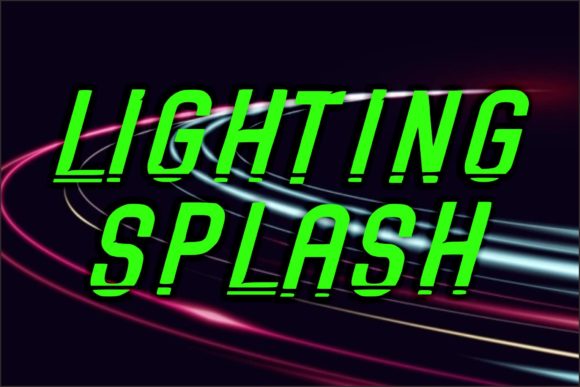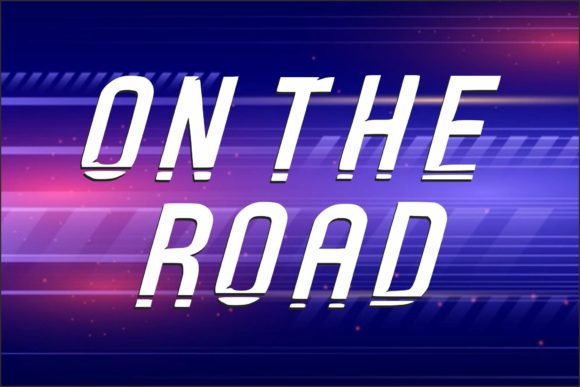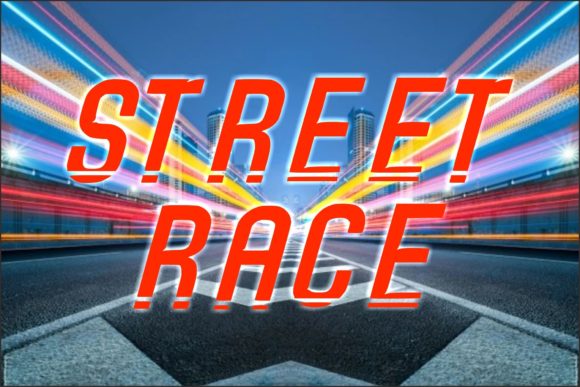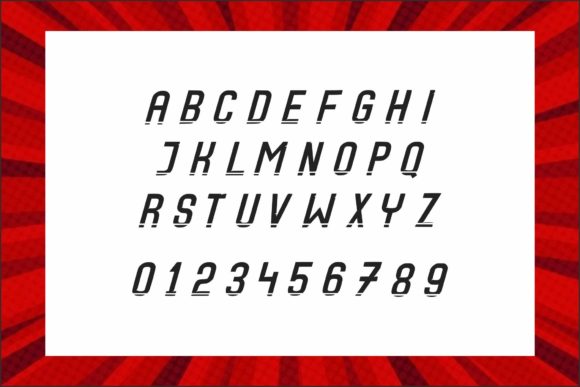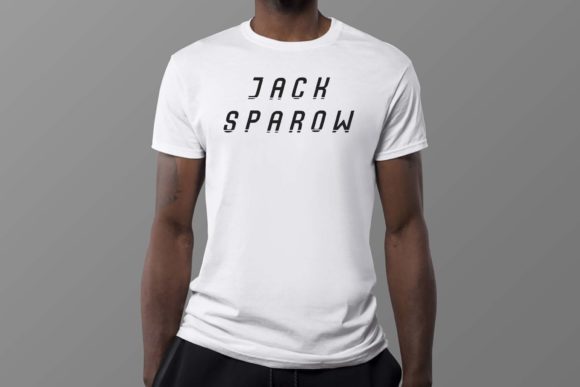
Introduction to Run Splash Font
Run Splash is a stylish display font that symbolises power and speed.
You can use it for logos, t-shirts, backgrounds, and much more Add this font to your favorite creative ideas and notice how it makes them come alive.
Key Features of Run Splash Font